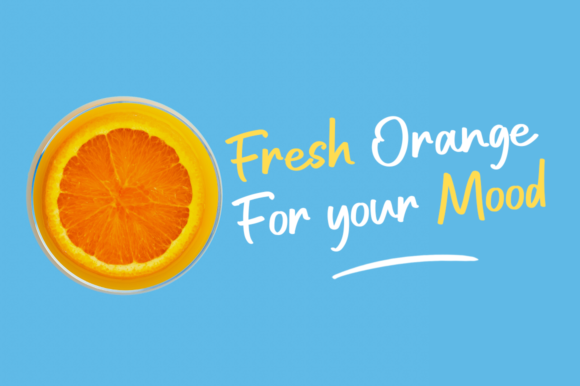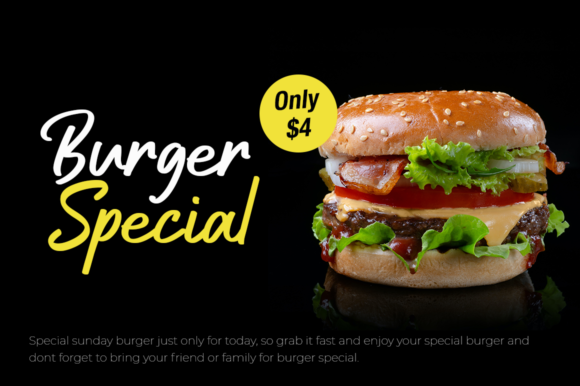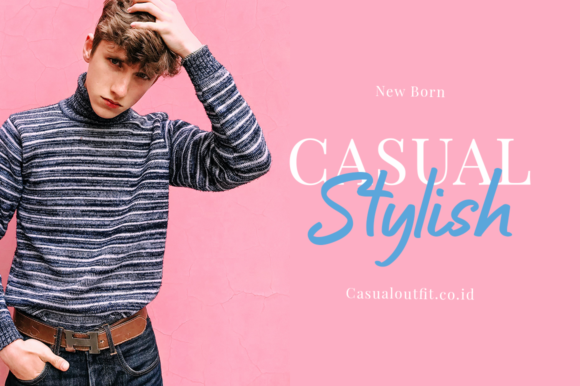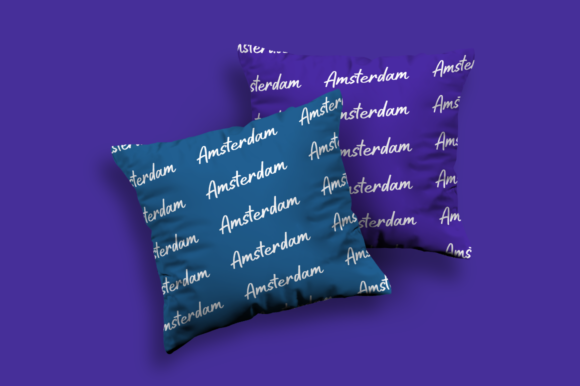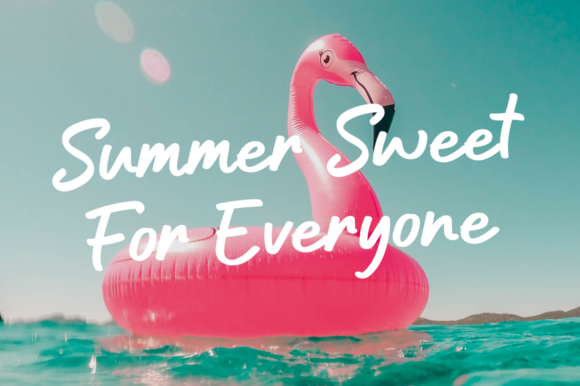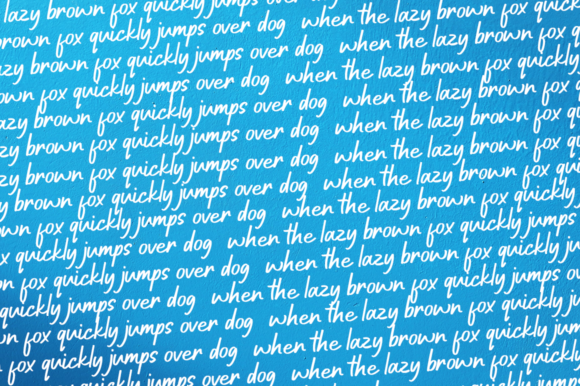
Luxor Font
About Luxor Font
Luxor is a modern handwritten font, carefully handcrafted to become a true favorite. Its casual charm makes it appear wonderfully down-to-earth, readable and, ultimately, incredibly versatile.